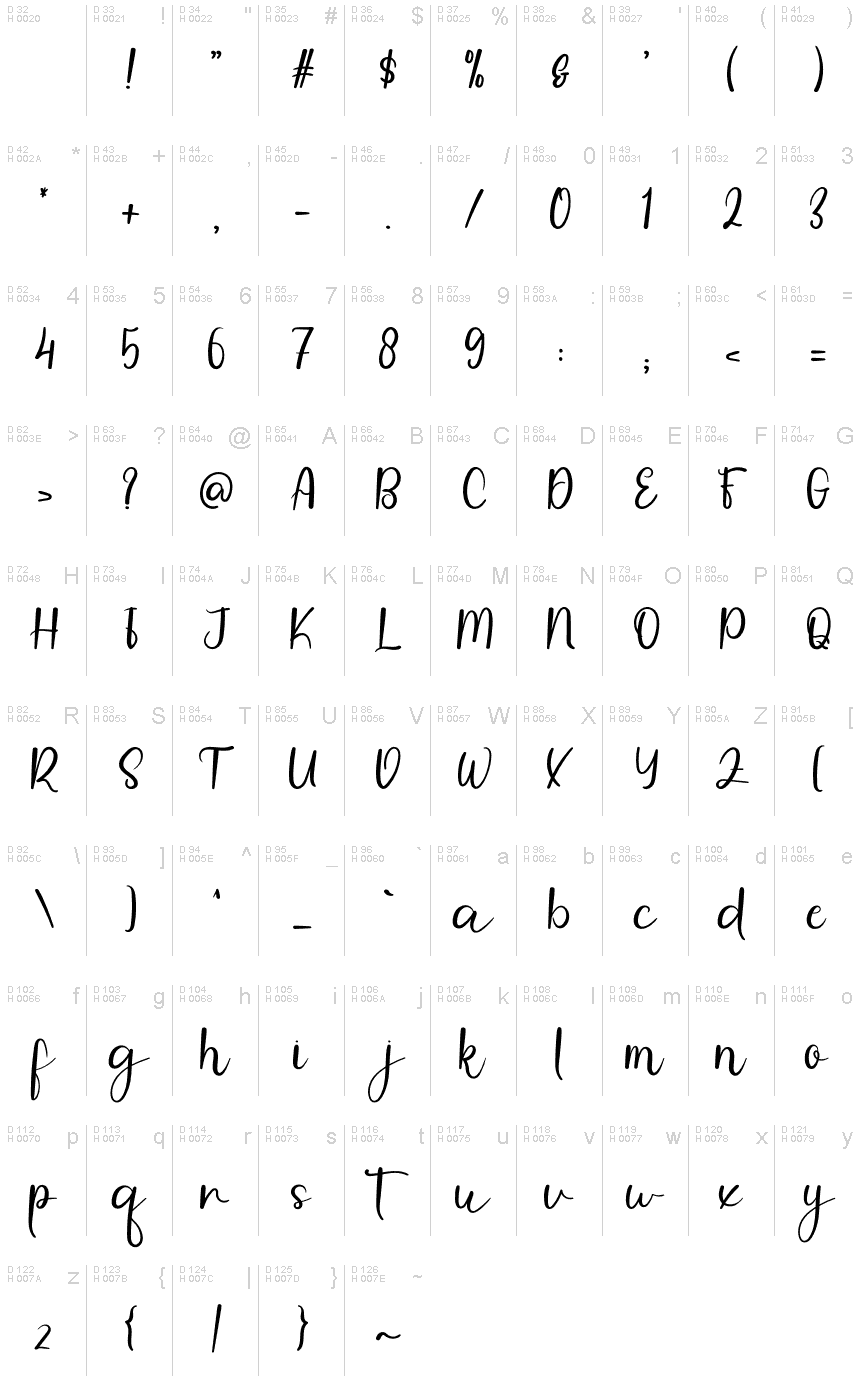
Coloring
Coloring is a whimsical and playful handwritten font designed by Inermedia Studio. Its semi-light weight makes it perfect for projects that require a touch of elegance and grace, such as wedding invitations, greeting cards, and branding materials. The cursive style of Coloring adds a personal touch to any project, making it perfect for blog headers, social media graphics, and even children's books. With its unique charm and versatility, Coloring is sure to become your go-to font for bringing your creative visions to life. Try it out today!